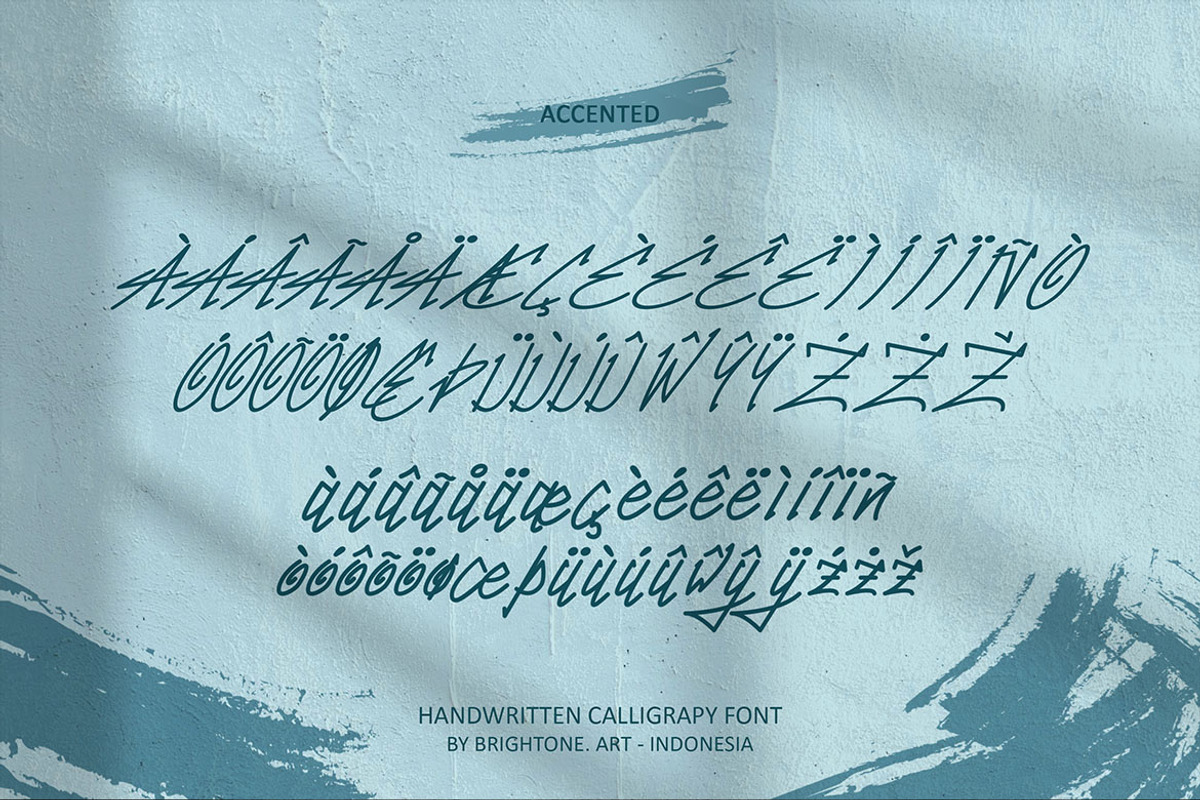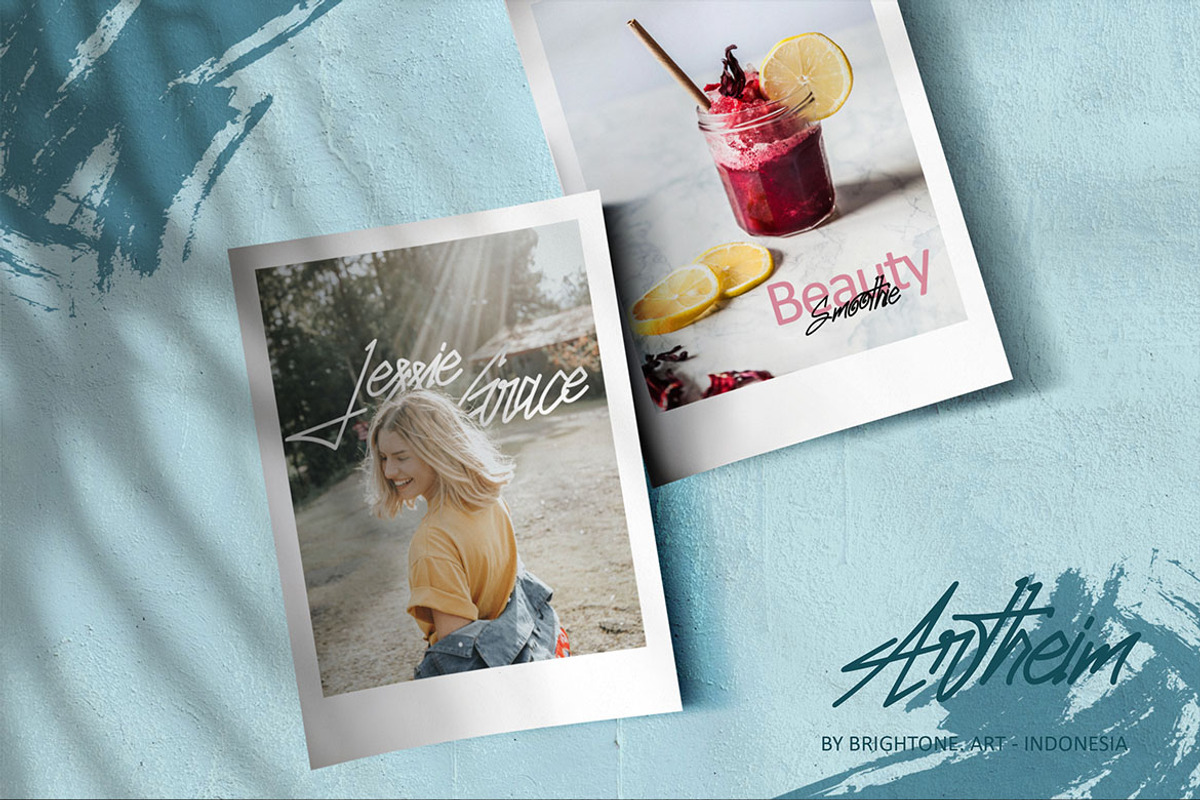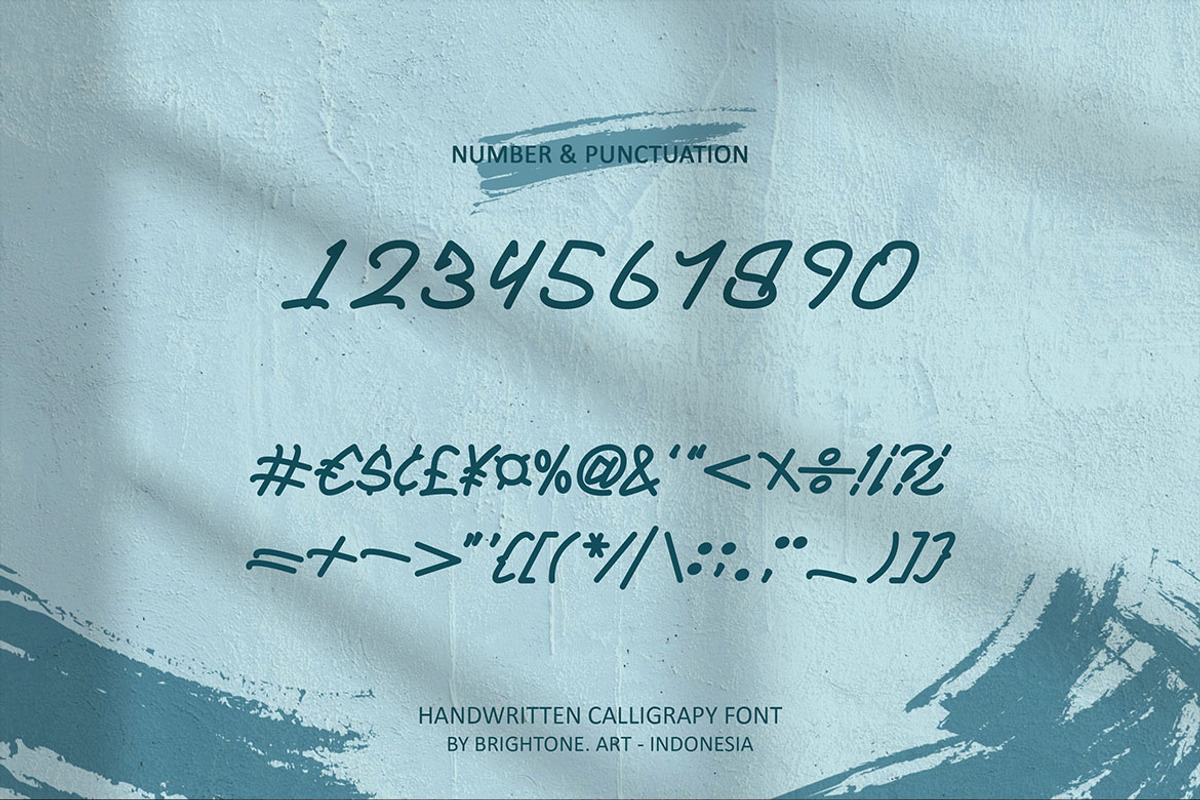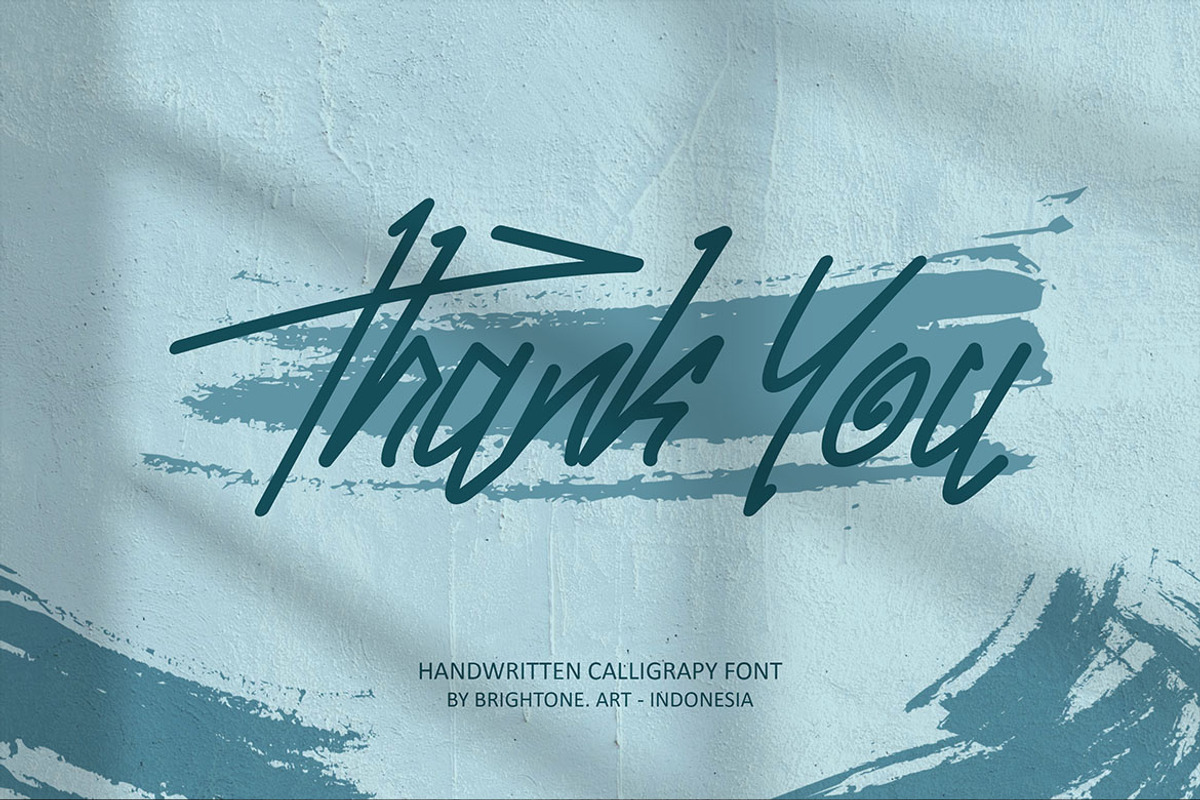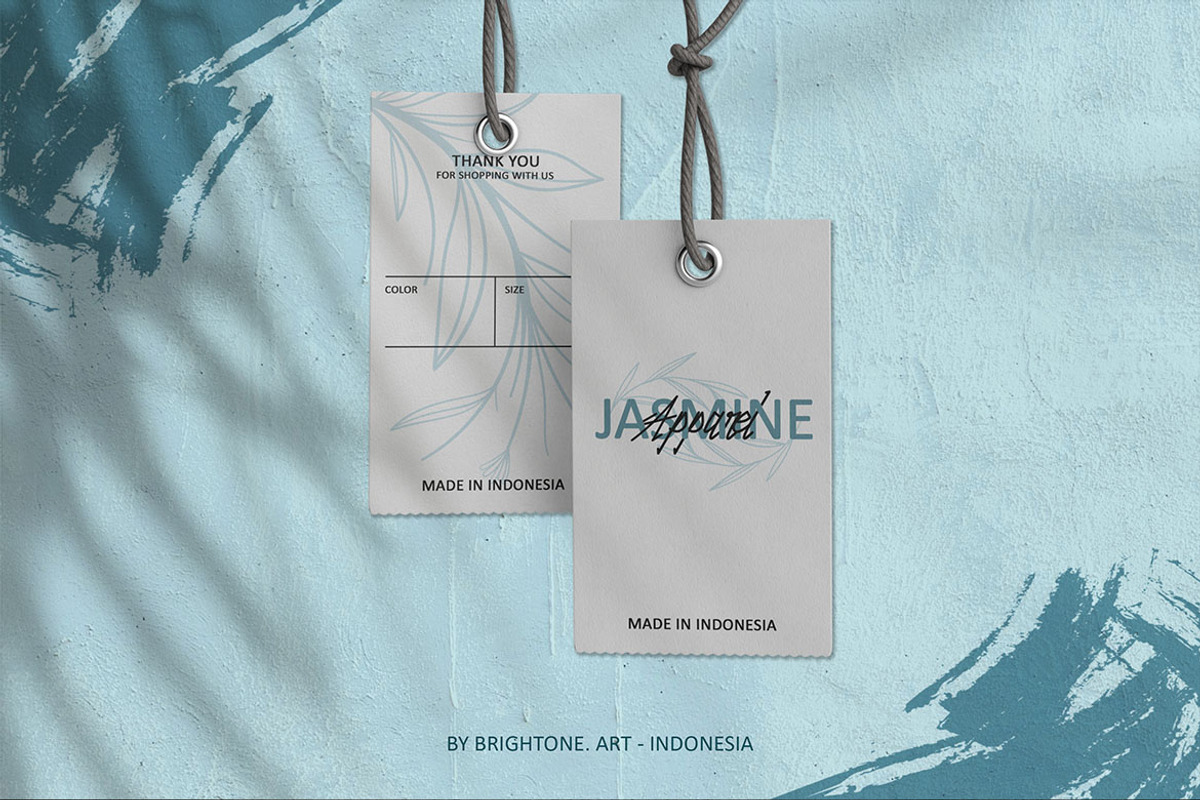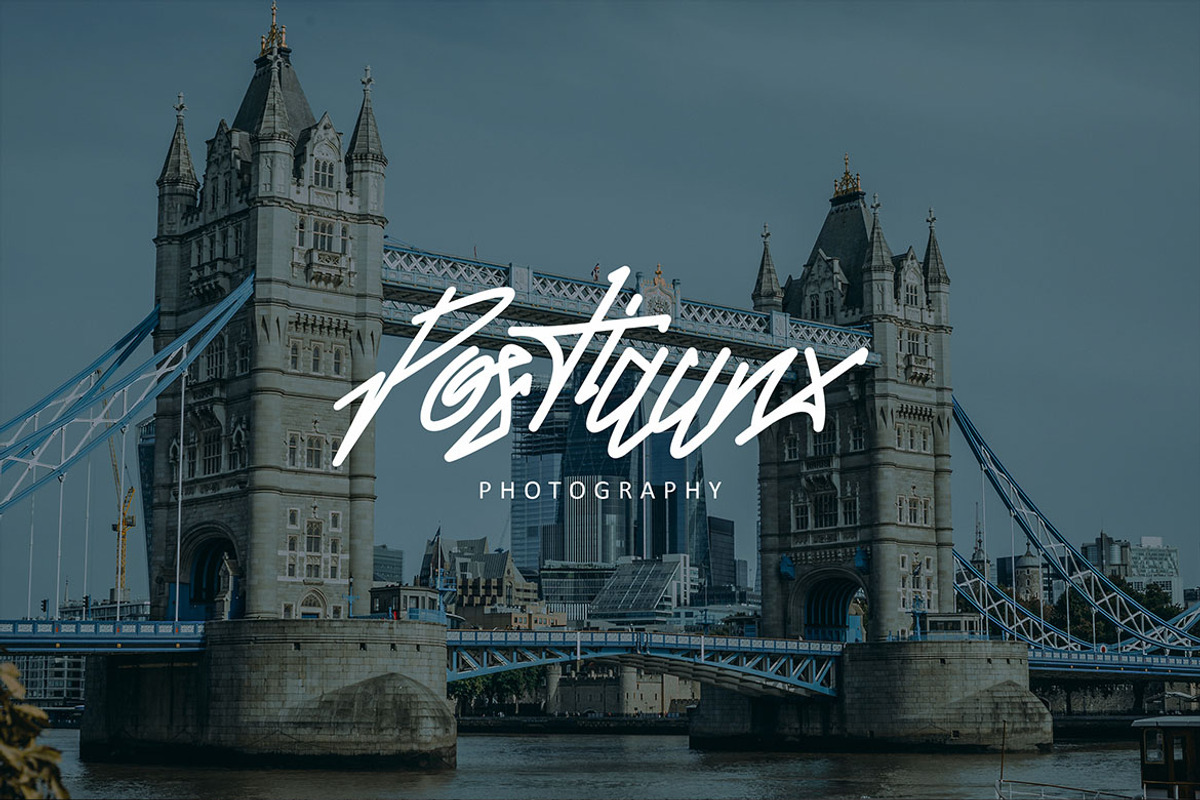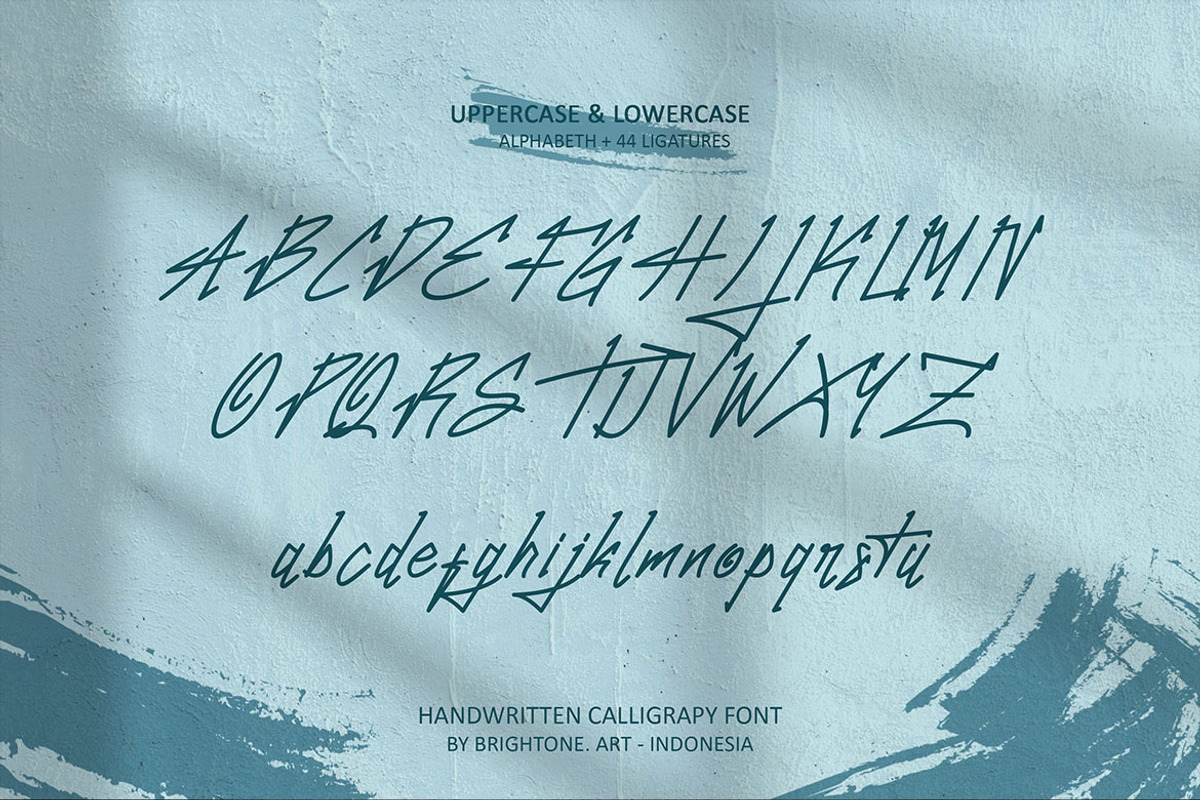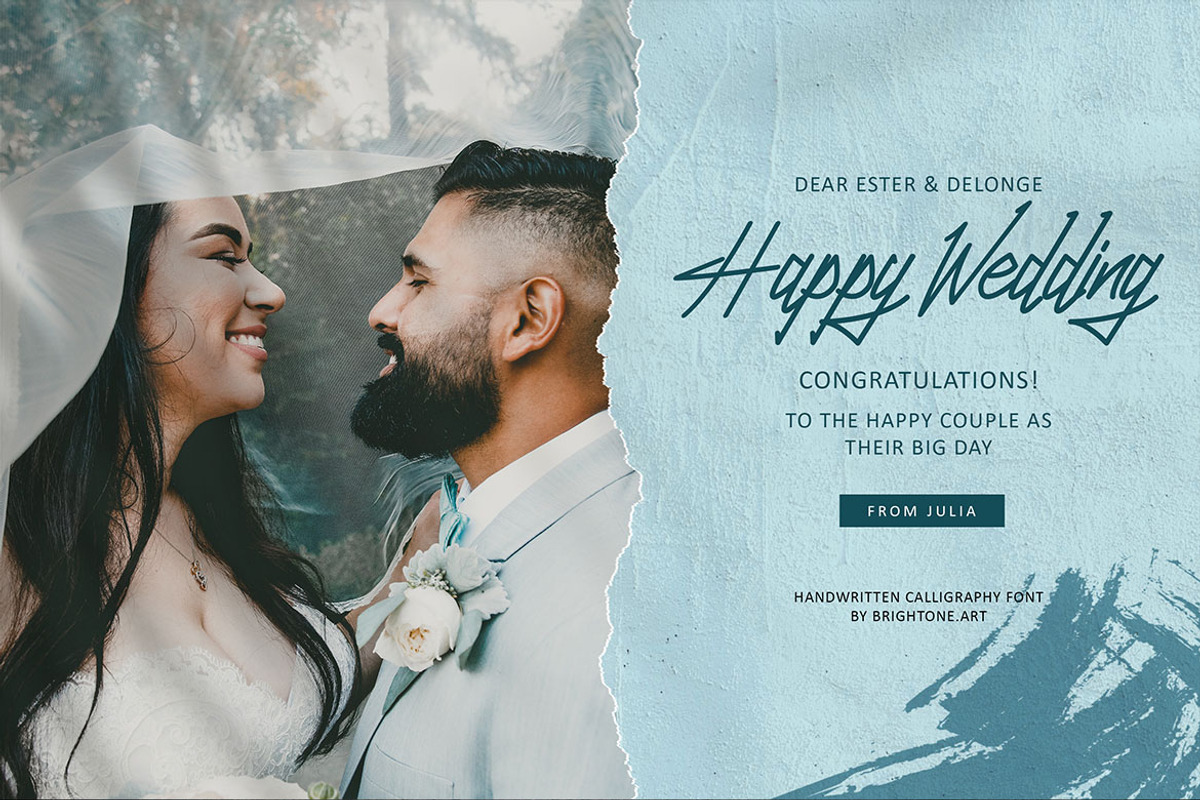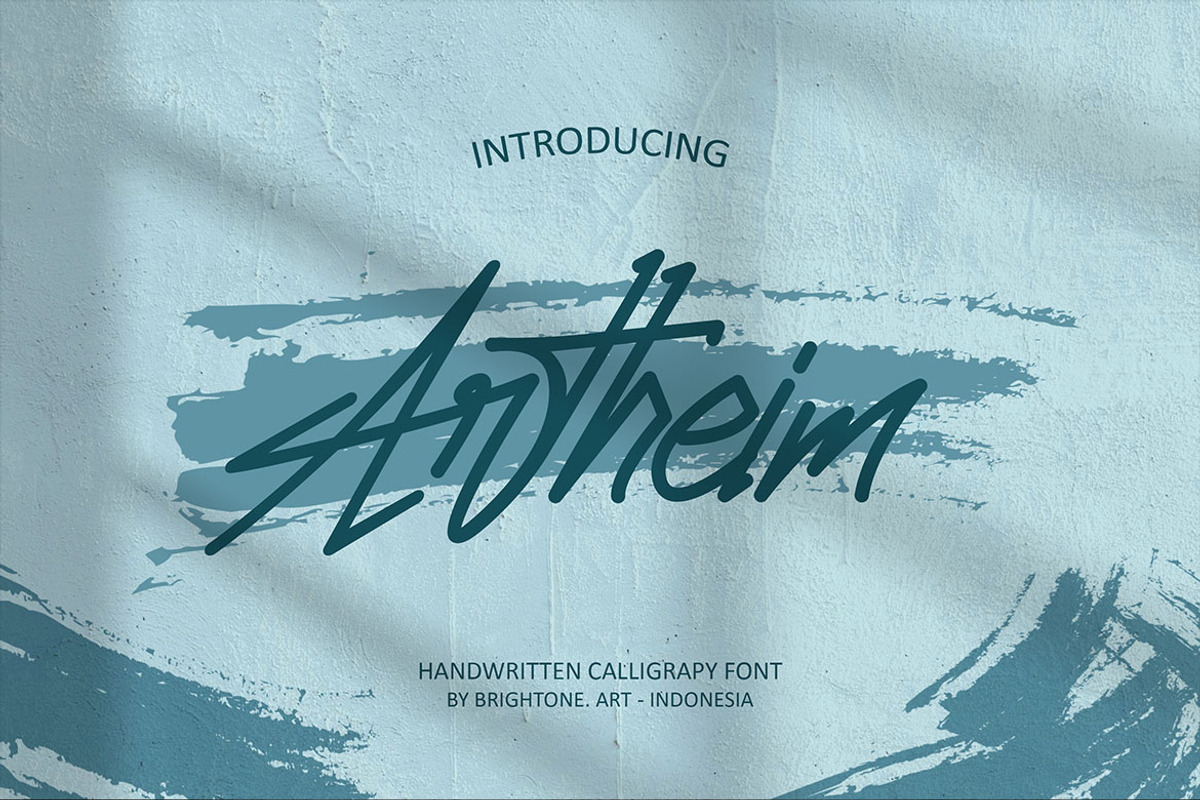
Artheim - Stylish Handwritten Font
Artheim is handwritten font with strip unique style, these font includes:
- Uppercase and Lowercase characters.
- Numbers and Punctuation.
- Ligatures.
- Multilingual Support (Eastern, Central and Western European countries).
Artheim font is suitable to use for all purpose for your logo lettering, logo, label, packaging, sticker, branding and many more